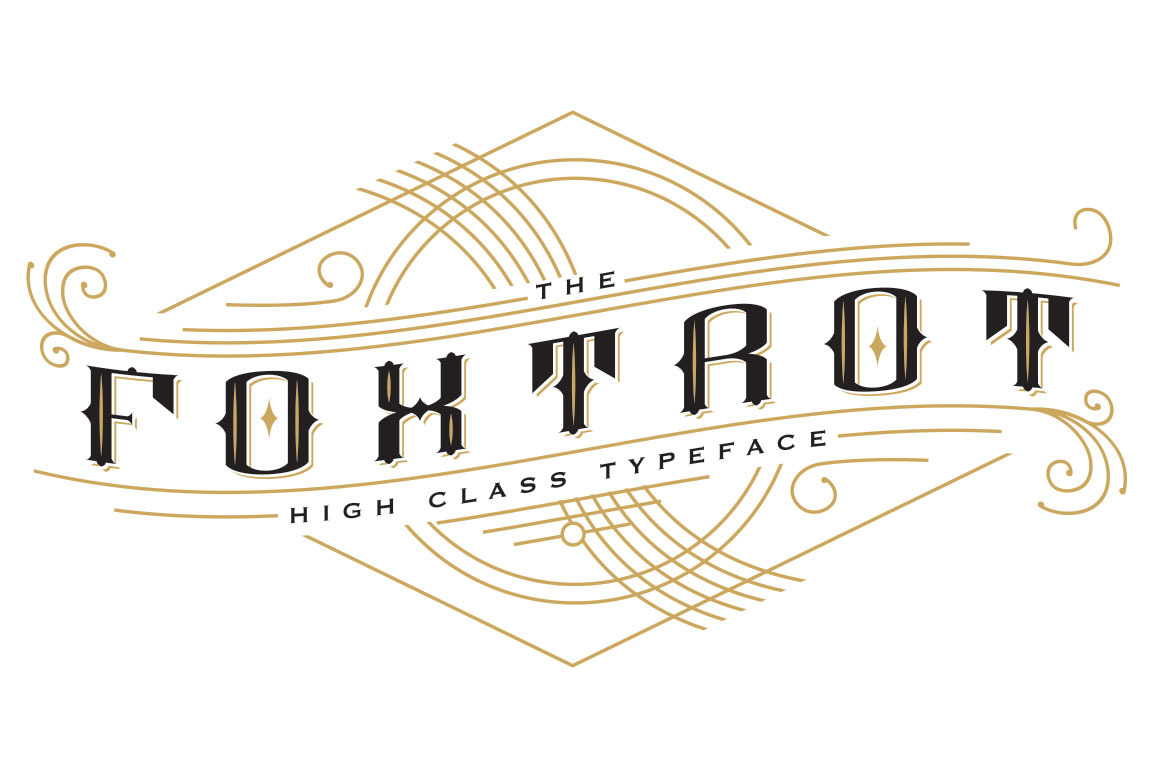
Foxtrot Typeface
A fancy pants serif typeface that will give anything that touch of class. Invitations, logos or even a tattoo. Top shelf all the way.